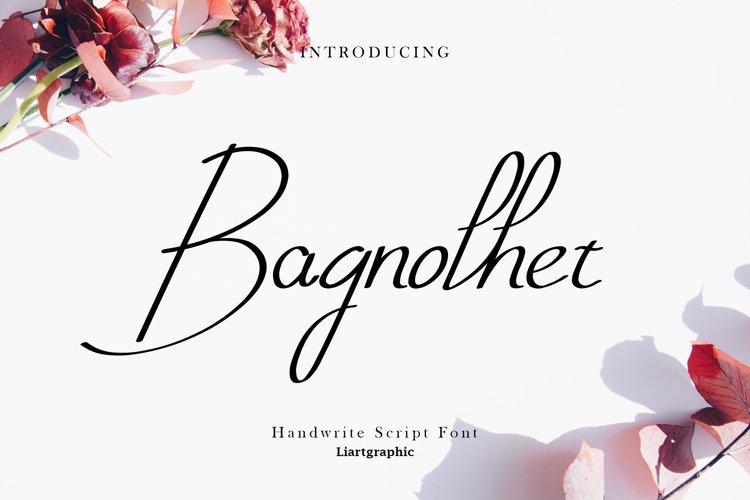
Meet our newest product, we call this product bagnolhet font.
bagnolhet font are script modern challigraphy,
Whit a sweet touch and beautiful indentation in each letter.
Bagnolhet font is very nice to use on:
Wedding invitation,fashion magazine,logos,signatures,and photography
Stylistic Alternates
Ligatures
Stylistic sets